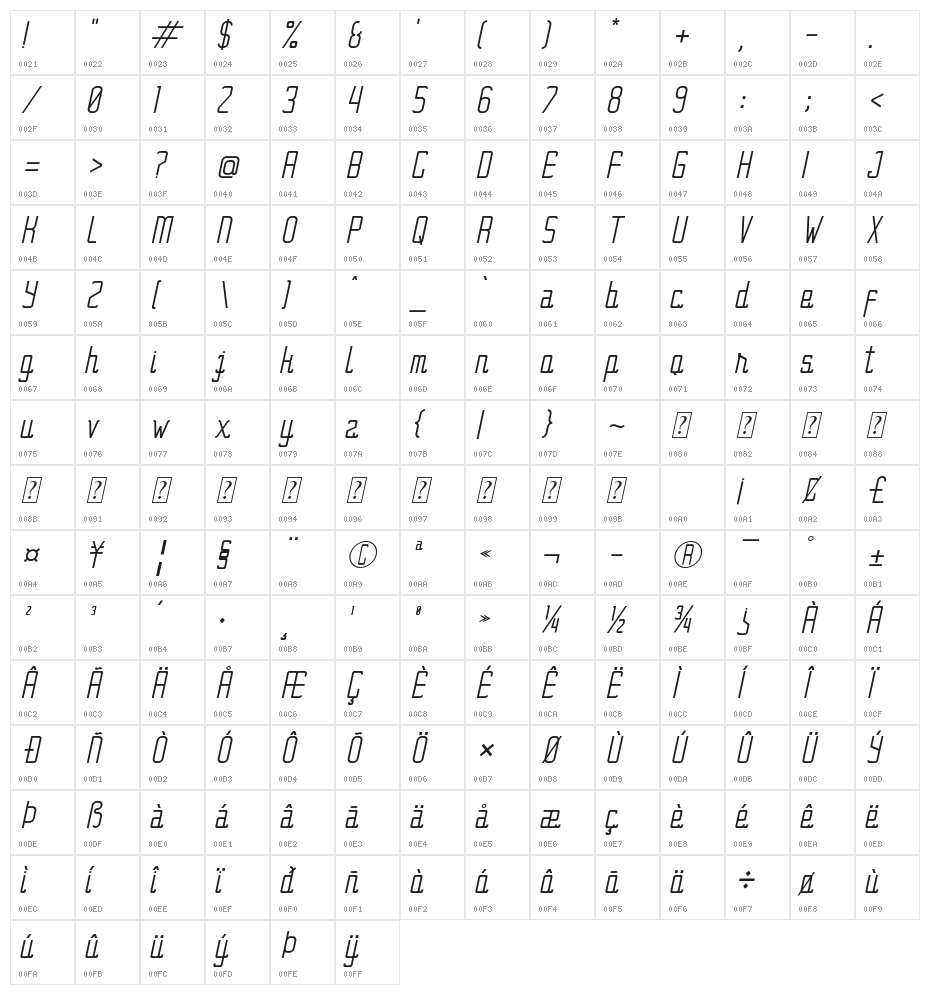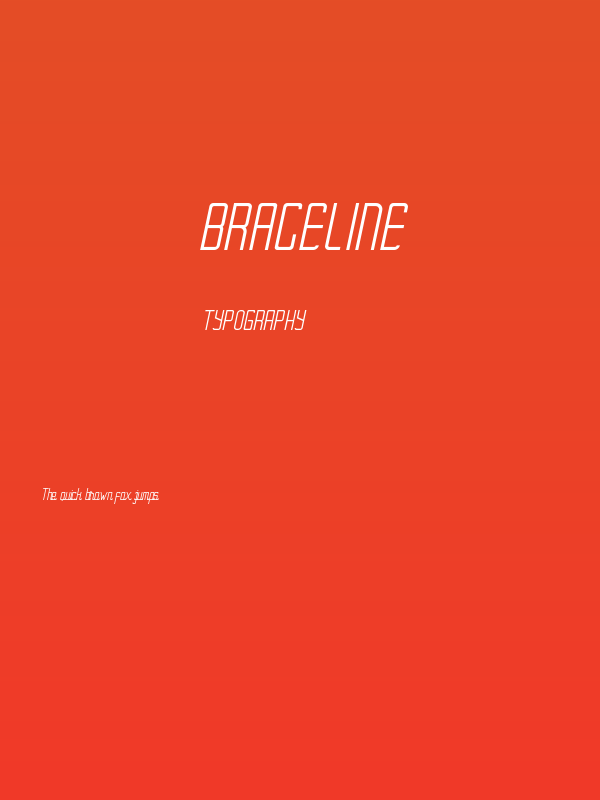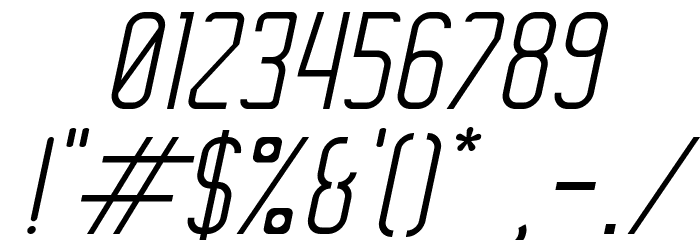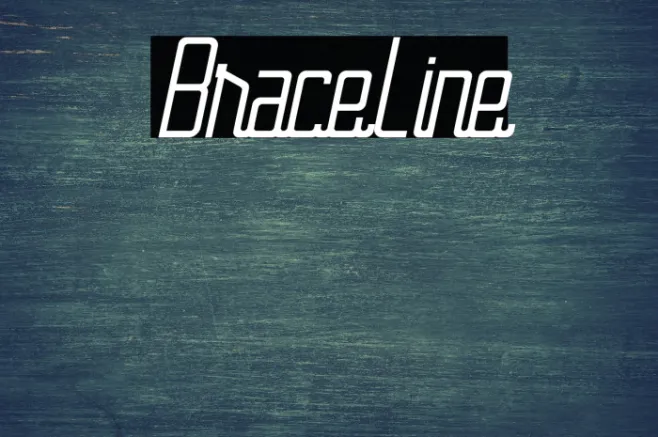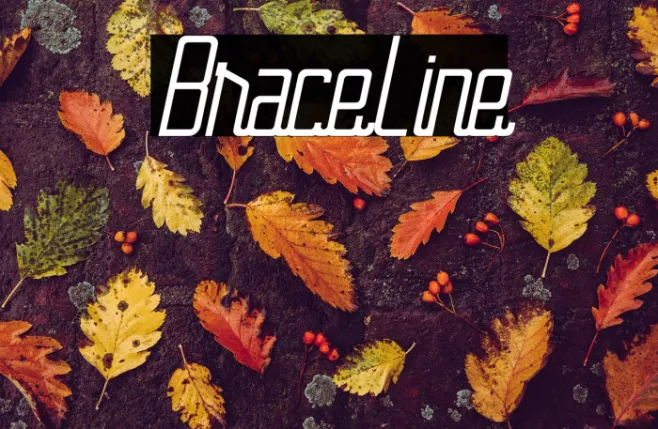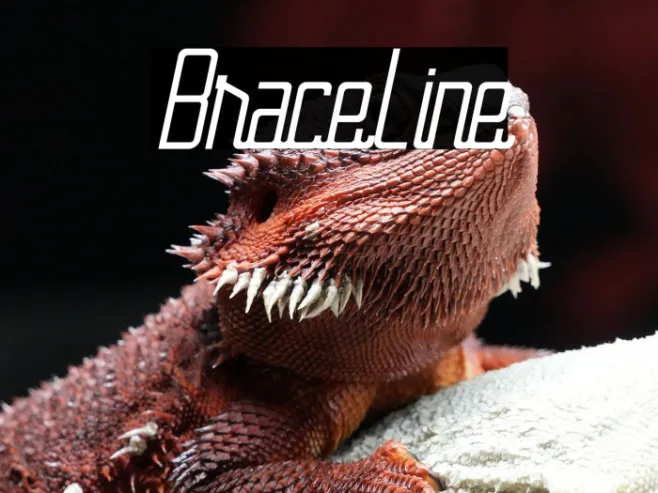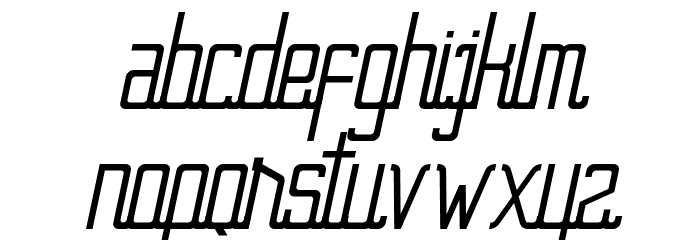
BraceLine Font
BraceLine Description
This font features a sleek, modern design with elongated, narrow characters that convey a sense of speed and agility. The uppercase letters are tall and slightly condensed, while the lowercase letters maintain a consistent height, creating a harmonious balance. The numerals are clear and distinct, matching the overall aesthetic of the alphabet. Special characters are designed with the same attention to detail, ensuring they integrate seamlessly with the rest of the typeface. The font's clean lines and geometric shapes make it suitable for contemporary design projects.
| Proposed Projects | Ideal for branding, advertising, and editorial design, especially where a modern and dynamic look is desired. |